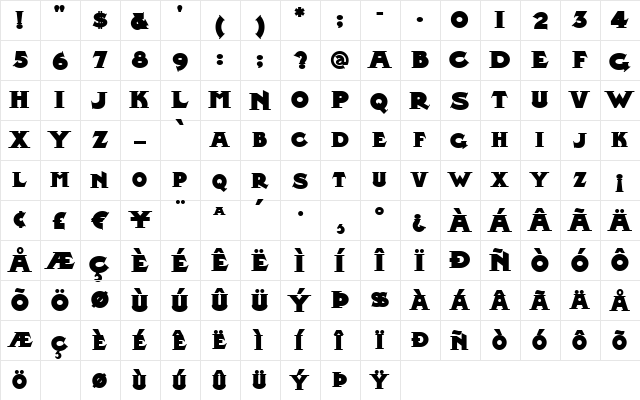
MidlandRailNF Regular
Design Context for MidlandRailNF Typeface
MidlandRailNF is a composed and adaptable typeface that performs quietly and consistently across a wide range of design contexts.